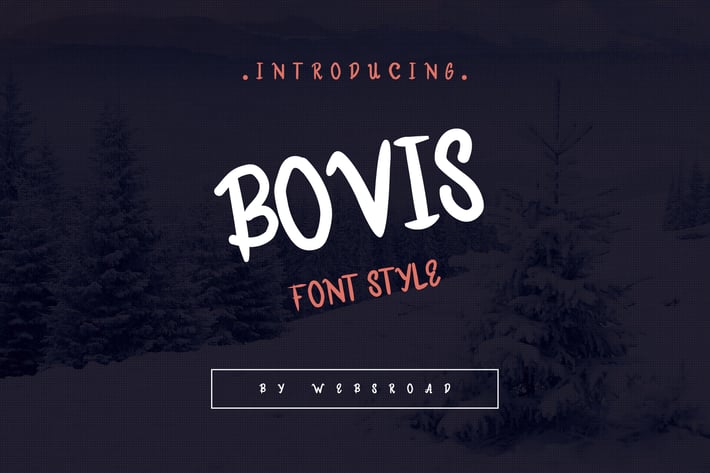
Bovis - Custom Handmade Font Style
A gentle and modern display typeface. Available in one weights, Bovis is best suited for headlines, posters, titles and captions. It features a huge range of weights and widths, ready for all kind of typographic challenges.
+ Basic Latin (A-Z and a-z)
+ Numbers (0-9)
+ Punctuation